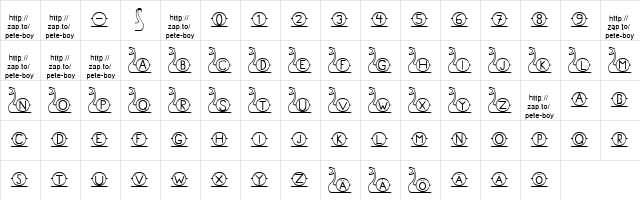
Pete-Boy Vikings Regular
Design Context for Pete-Boy Vikings Typeface
Pete-Boy Vikings is a composed and adaptable typeface that performs quietly and consistently across a wide range of design contexts.
Pro Tip: Use Pete-Boy Vikings in both headline and body roles to test its range before committing to a single application.